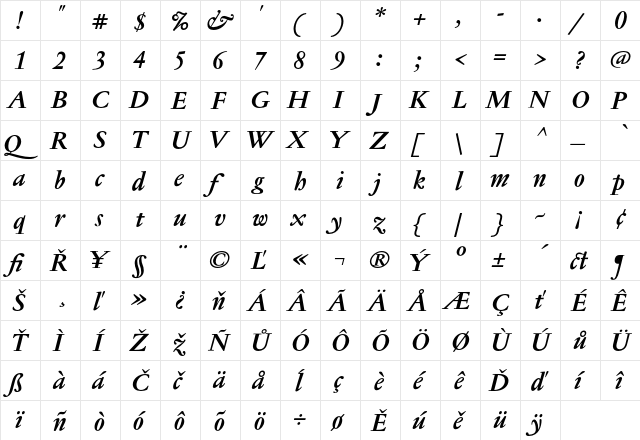
Jannon Text Bold Italic
Design Context for Jannon Text Typeface
Jannon Text is a composed and adaptable typeface that performs quietly and consistently across a wide range of design contexts. Its italic angle brings a sense of urgency and motion to the letterforms. Its bold stroke weight gives it real presence on the page.
Pro Tip: Use Jannon Text for emphasis, pull quotes, and subheadings where its slanted energy can add rhythm to the layout.